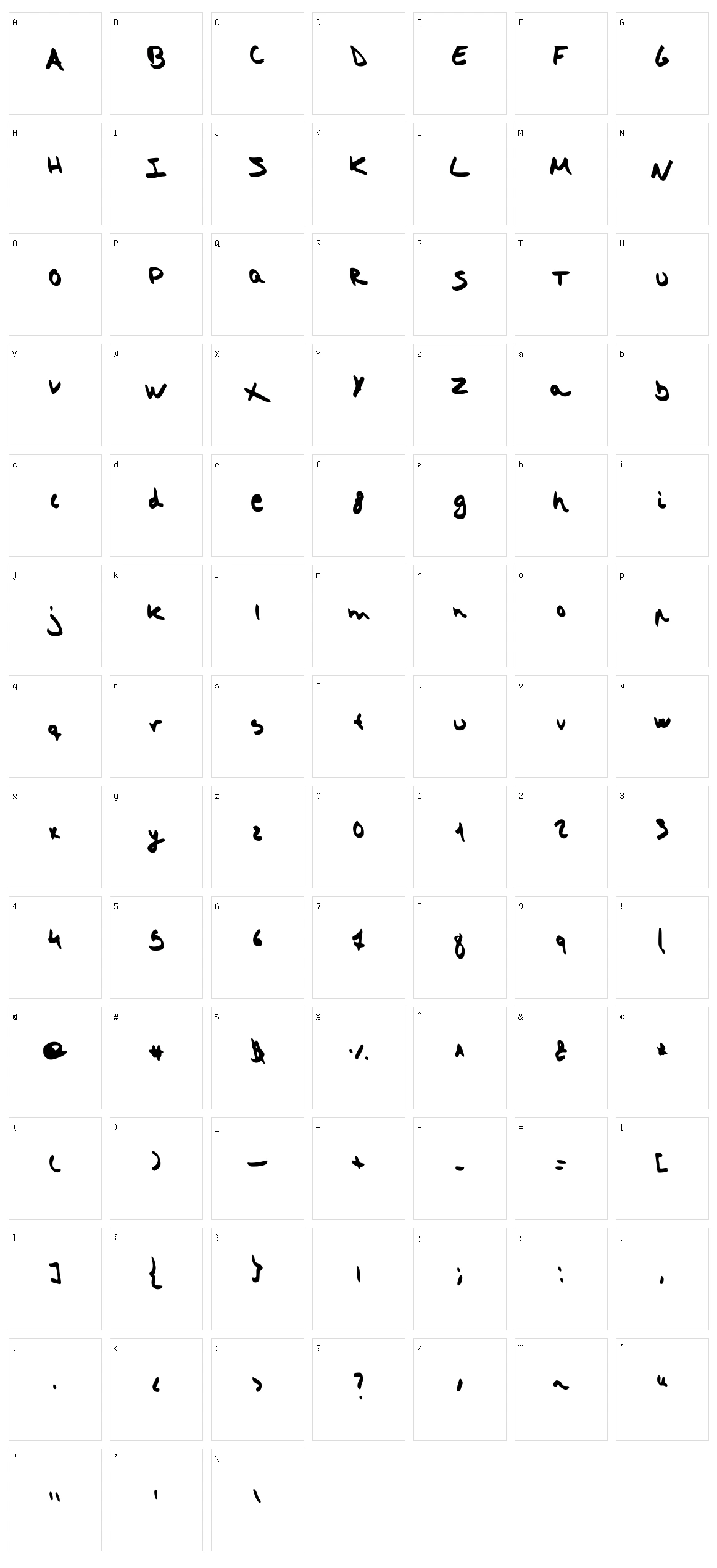
The free font Strange Headache is carefully designed by Guillermo Vela Garcia, showcasing a thoughtful balance of creativity and usability and falls under the Script font style. When you download the ZIP file, it contains only 15.4 KB of font files, making it lightweight and quick to download. Please review the license details below to understand permitted usage and distribution rights. If license information is not available, we recommend using this font for personal projects only or contacting the author directly for commercial usage permissions.